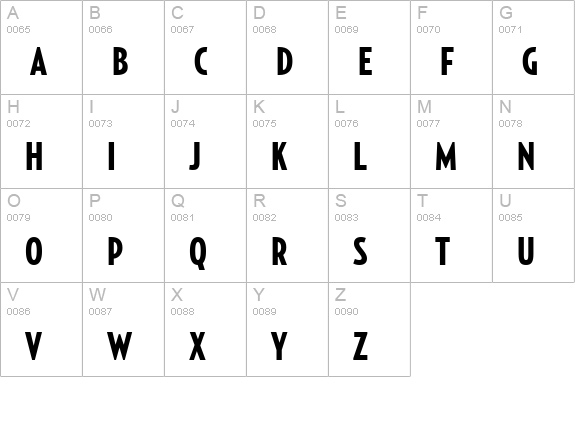
RelayComp-Black is a maximum-weight, dramatic variant in the RelayComp typeface family \xE2\x80\x94 well suited to maximum-impact headlines, posters, and packaging.
Introducing RelayComp-Black, a bold and striking font that exudes confidence and modernity. With its clean lines and powerful presence, this font is perfect for making a bold statement in any design project. What sets RelayComp-Black apart is not just its impeccable design, but also the fact that it is freely available to download at FontsMarket.com. Yes, you heard it right – this incredible font can be yours at no cost! Whether you're a professional designer looking to add a touch of sophistication to your work, or a creative enthusiast wanting to experiment with different styles, RelayComp-Black is the ideal choice. Its versatility makes it suitable for a wide range of design projects, from logos and branding to posters and headlines. The bold and commanding strokes of RelayComp-Black will captivate your audience and leave a lasting impression. It demands attention and effortlessly draws the eye to your message, ensuring that your words are seen and heard. Designed with meticulous attention to detail, RelayComp-Black offers a harmonious balance between elegance and impact. Its timeless appeal makes it a font that will stand the test of time, ensuring that your designs remain relevant and captivating for years to come. So why wait? Embrace the power of RelayComp-Black and elevate your designs to new heights. Download this remarkable font for free at FontsMarket.com and unleash your creativity like never before. It's time to make a statement with RelayComp-Black.